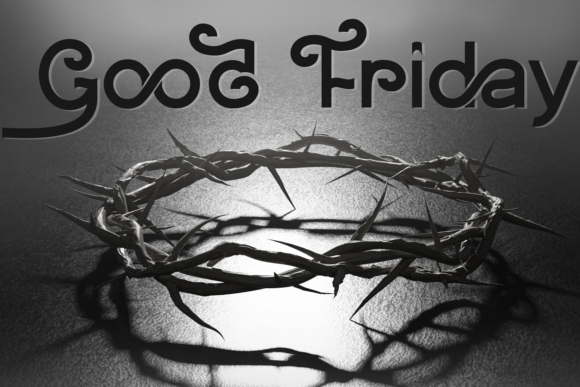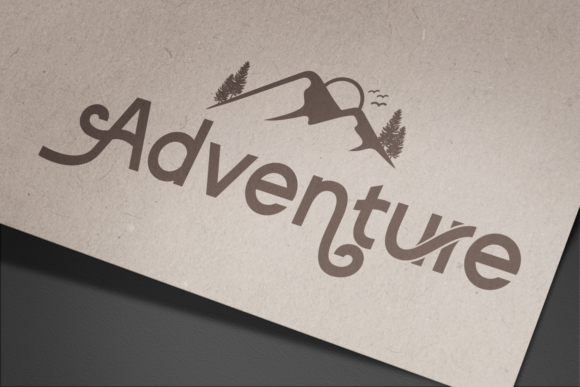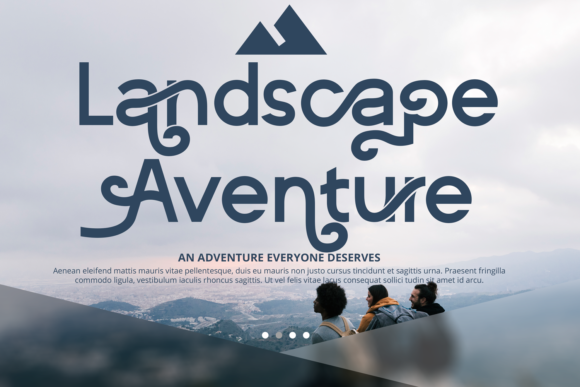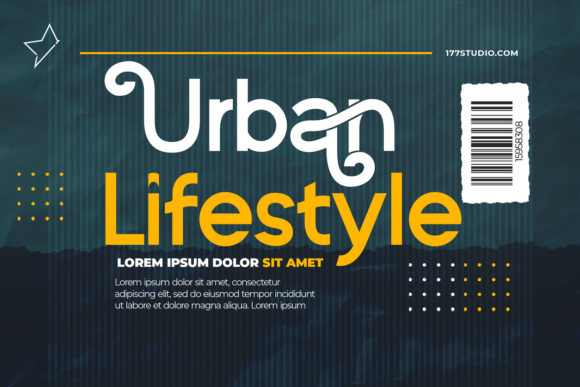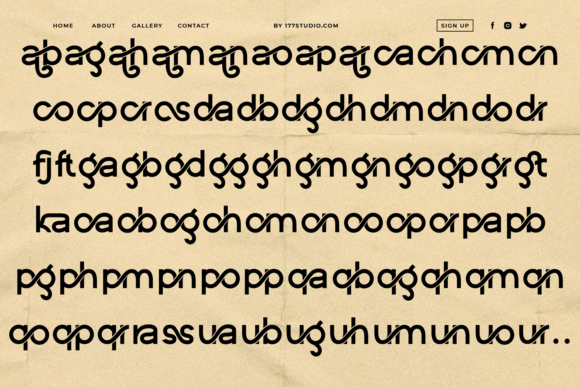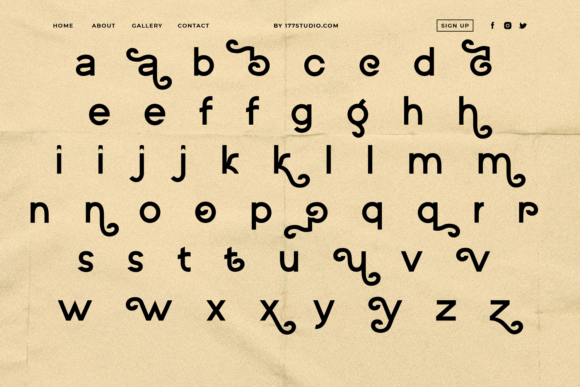
The Perfect Match for Your Next Design Project
Imagine you’re brainstorming ideas for your next creative project, and suddenly, the perfect font pops into your mind. You envision it bold, eye-catching, and uniquely yours. For many designers, finding that perfect font can be the turning point that sets their project apart. If you’re on the hunt for a font that will elevate your designs and leave a lasting impression, look no further than the Akashic Font.
This beautiful display font is not only aesthetically pleasing but also PUA encoded, making it incredibly easy to access and use all of its unique glyphs and swashes. With the Akashic Font, the possibilities are endless, and designers can push the boundaries of their creativity. Whether you’re working on a logo, typography project, or any other design, this font is sure to bring a touch of sophistication and elegance to your work.
Akashic Font Key Features
- Unique Characteristics: Akashic Font features a unique blend of modern and traditional elements, with a focus on elegant lines, subtle curves, and a sophisticated aesthetic.
- Font Weight and Style: Akashic Font comes in multiple weights and styles, including light, regular, bold, and italic, allowing users to customize their typography to suit their needs.
- Professional Touch: The font’s sophisticated design and high-quality rendering make it an ideal choice for professional projects, including business cards, brochures, and marketing materials.
A Review of Akashic Font
I’ve had the chance to work with Akashic Font, and I’m here to share my honest thoughts. Here’s what I think works well:
- ✨ Unique aesthetic: Akashic Font has a distinctive, otherworldly feel that can really make a design stand out.
- ✨ Good legibility: Despite its unconventional design, the font is surprisingly easy to read, especially at larger sizes.
- ✨ Versatility: Akashic Font works well in a variety of contexts, from titles and headings to body text and even digital displays.
However, I do have some reservations:
- ⚠️ Limited font sizes: While Akashic Font looks great at larger sizes, it can become quite blurry and difficult to read at smaller sizes.
- ⚠️ Not ideal for small text: Similarly, the font isn’t well-suited for very small text, where its irregularities can become distracting.
- ⚠️ Limited character set: Akashic Font only includes a standard set of characters, which can limit its use in certain contexts.
Overall, I think Akashic Font is a great choice for designers who want to add some visual interest to their work. However, it’s not a one-size-fits-all solution, and you’ll need to be mindful of its limitations to get the best results.